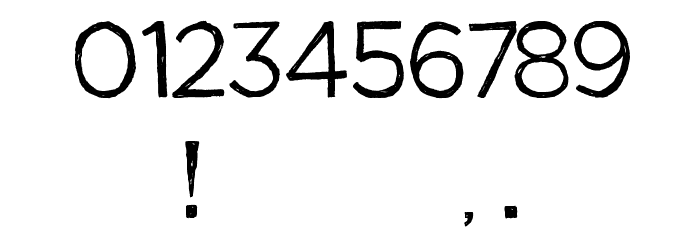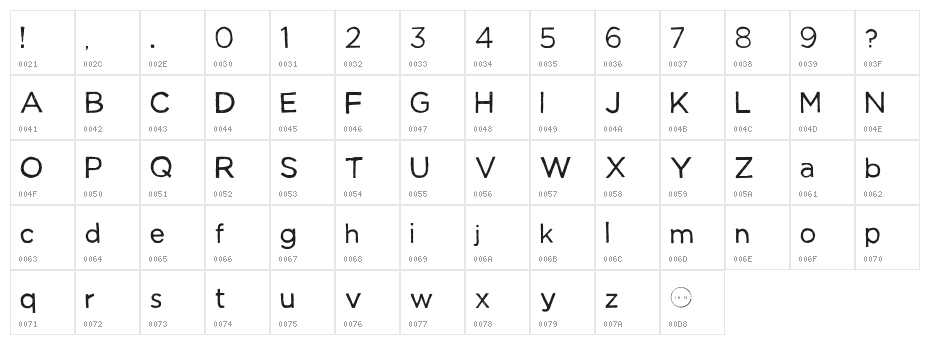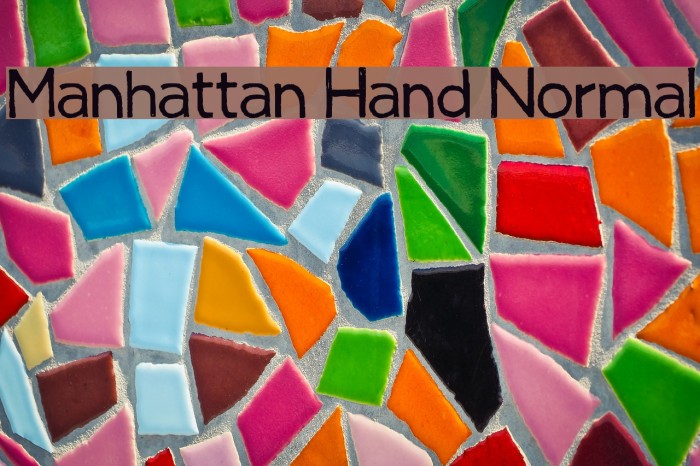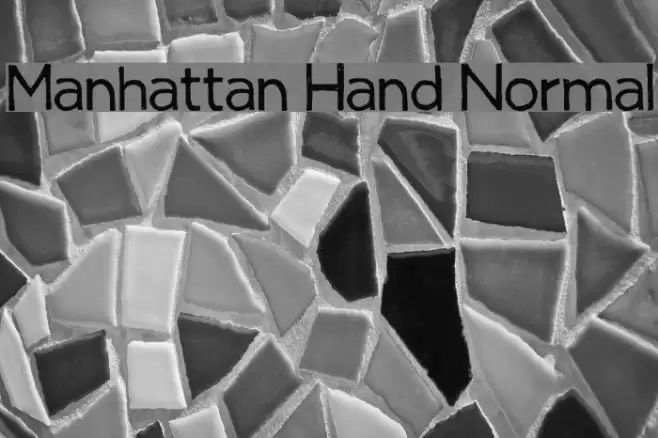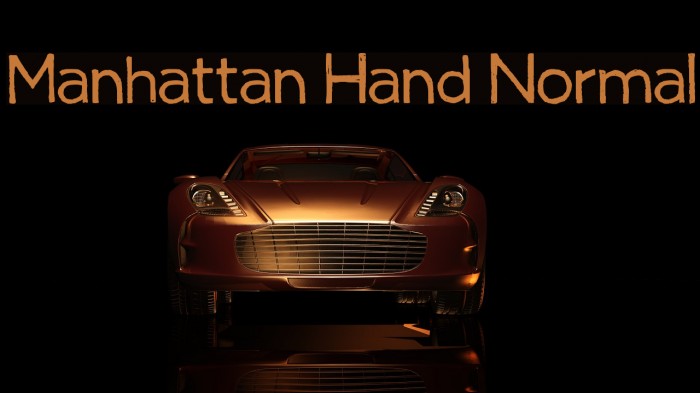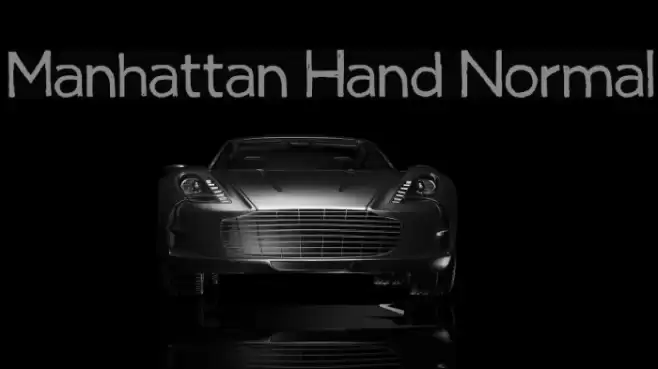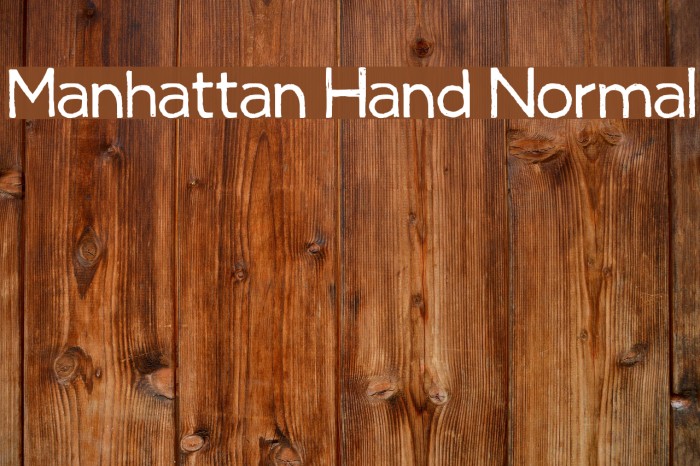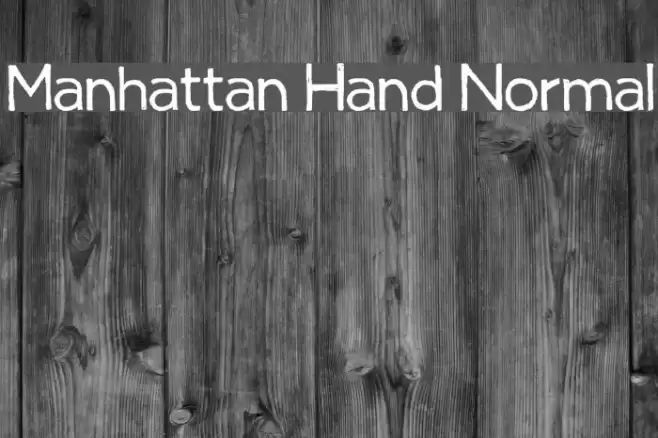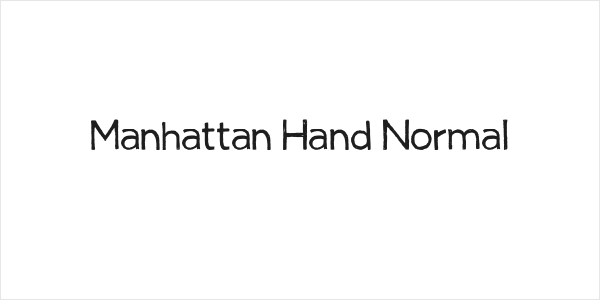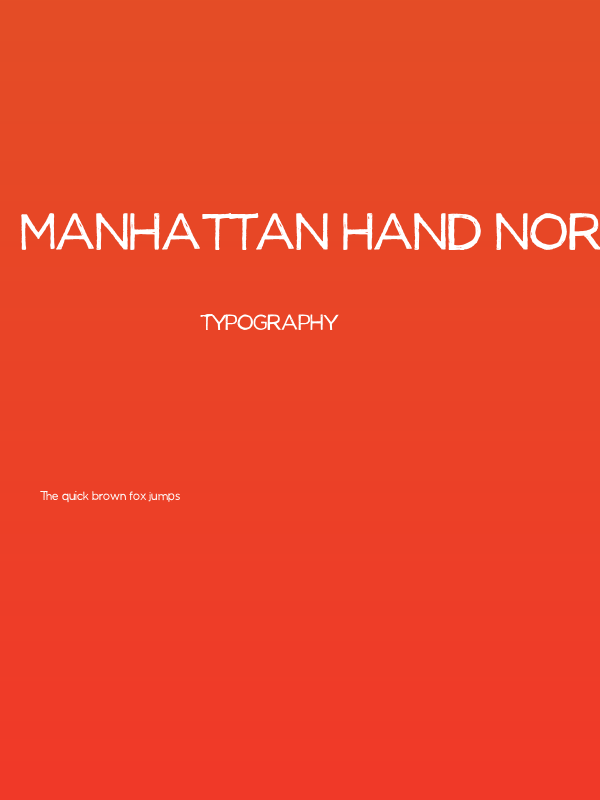
Manhattan Hand Normal Font
Manhattan Hand Normal Description
This font features a hand-drawn, casual style with a playful and approachable feel. The characters are slightly irregular, giving it a personal and informal touch. The strokes are consistent in width, providing a uniform appearance despite the hand-crafted look. The uppercase letters are bold and prominent, while the lowercase letters maintain a friendly and inviting demeanor. The numerals are clear and easy to read, complementing the overall style. Special characters are included, enhancing its versatility for various design needs.
| Proposed Projects | Ideal for greeting cards, invitations, children's books, and playful branding projects. |